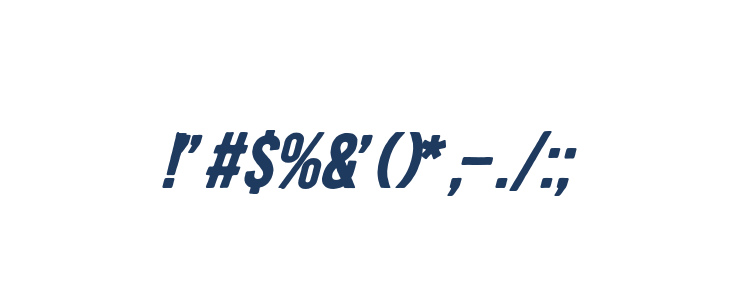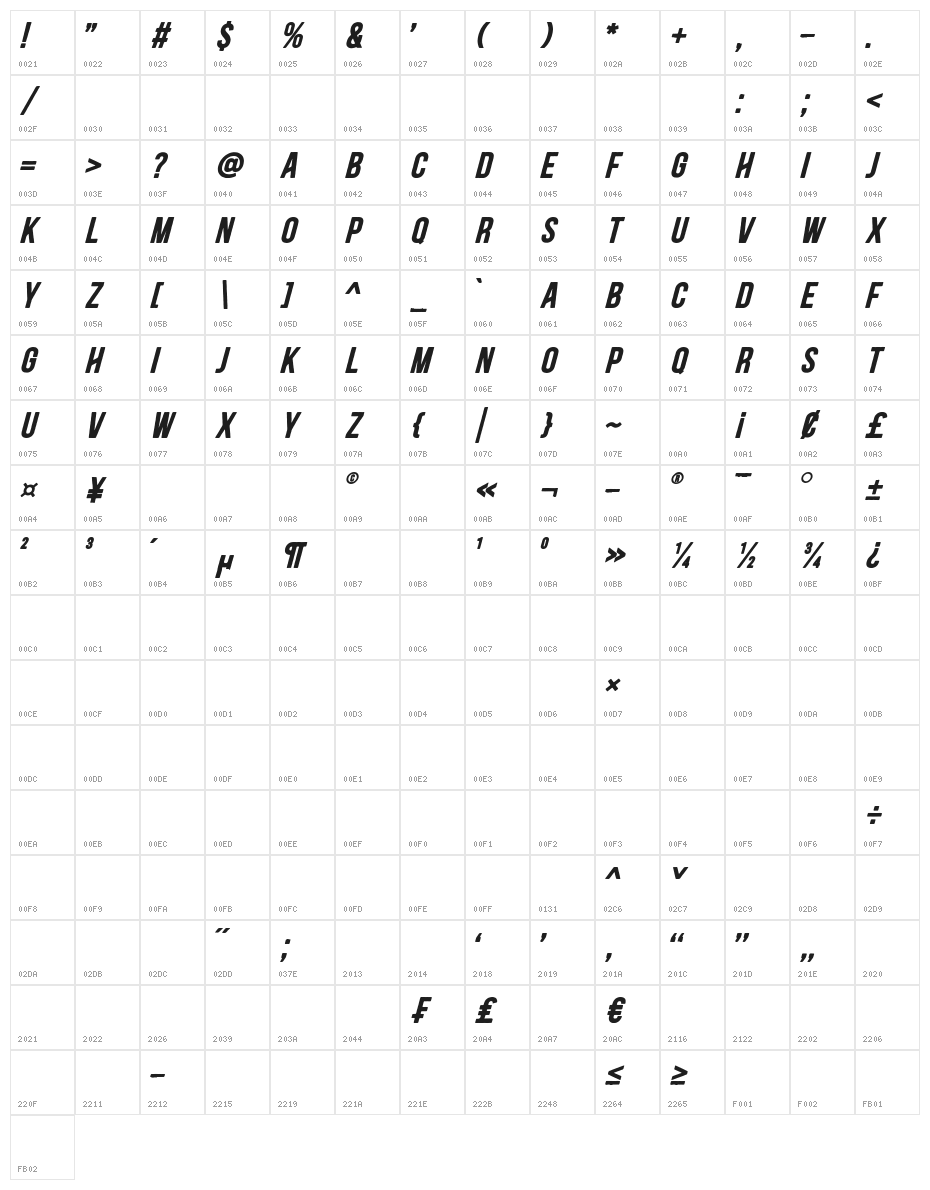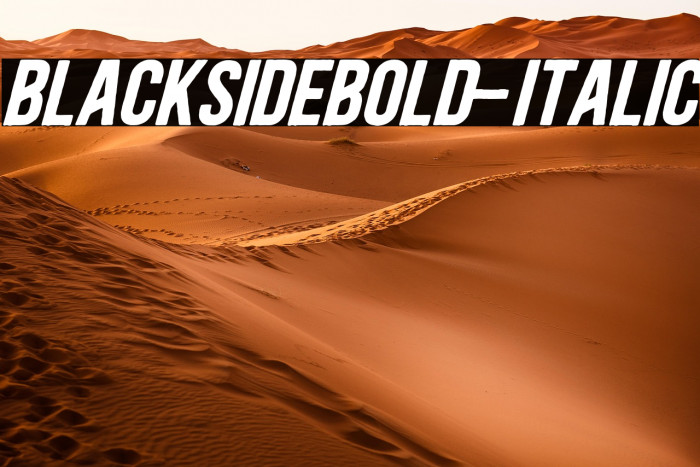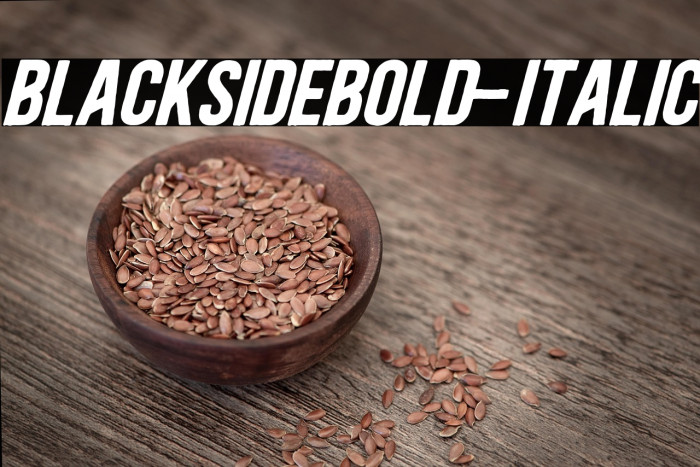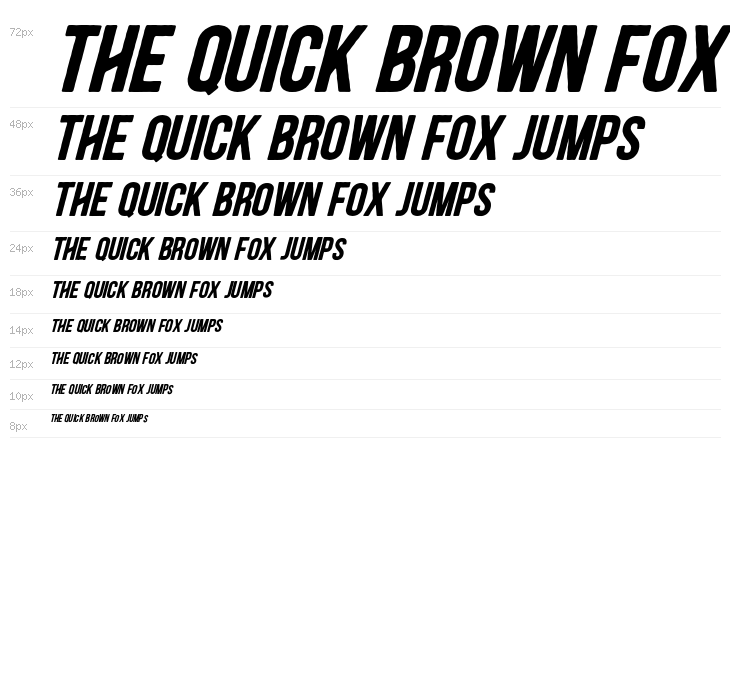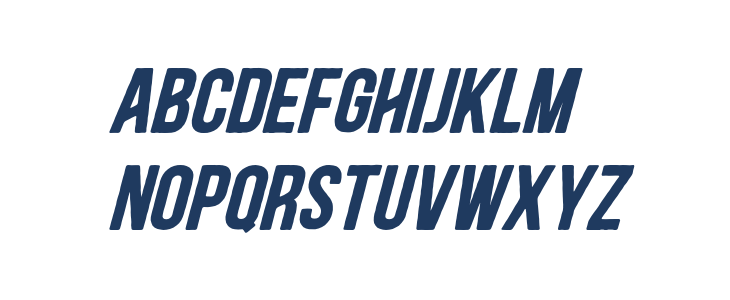
BlacksideBold-Italic Font
BlacksideBold-Italic Description
This font features a bold and italicized style with a strong presence, characterized by thick strokes and a slightly condensed form. The uppercase letters are prominent and assertive, making a statement with their slanted posture. The lowercase letters maintain the same boldness, ensuring consistency throughout the typeface. The numerals and special characters are equally bold, providing a cohesive look across all characters. This font's dynamic and energetic appearance makes it suitable for impactful designs.